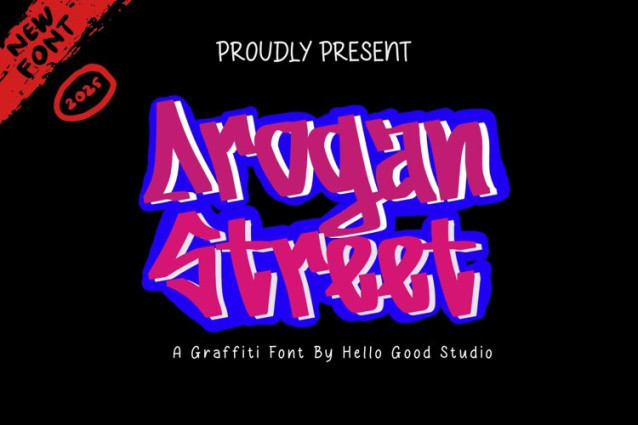
Arogan Street Font
Arogan Street Font is street display font which is made by a natural hand writing. The bold stroke make this font looks stands out, very suitable to be applied especially for logo, title, headline, slogan / tagline and the other various formal forms such as invitations, labels, logos, magazines, books, greeting / wedding cards, packaging, fashion, make up, stationery, novels, labels or any type of advertising purpose.